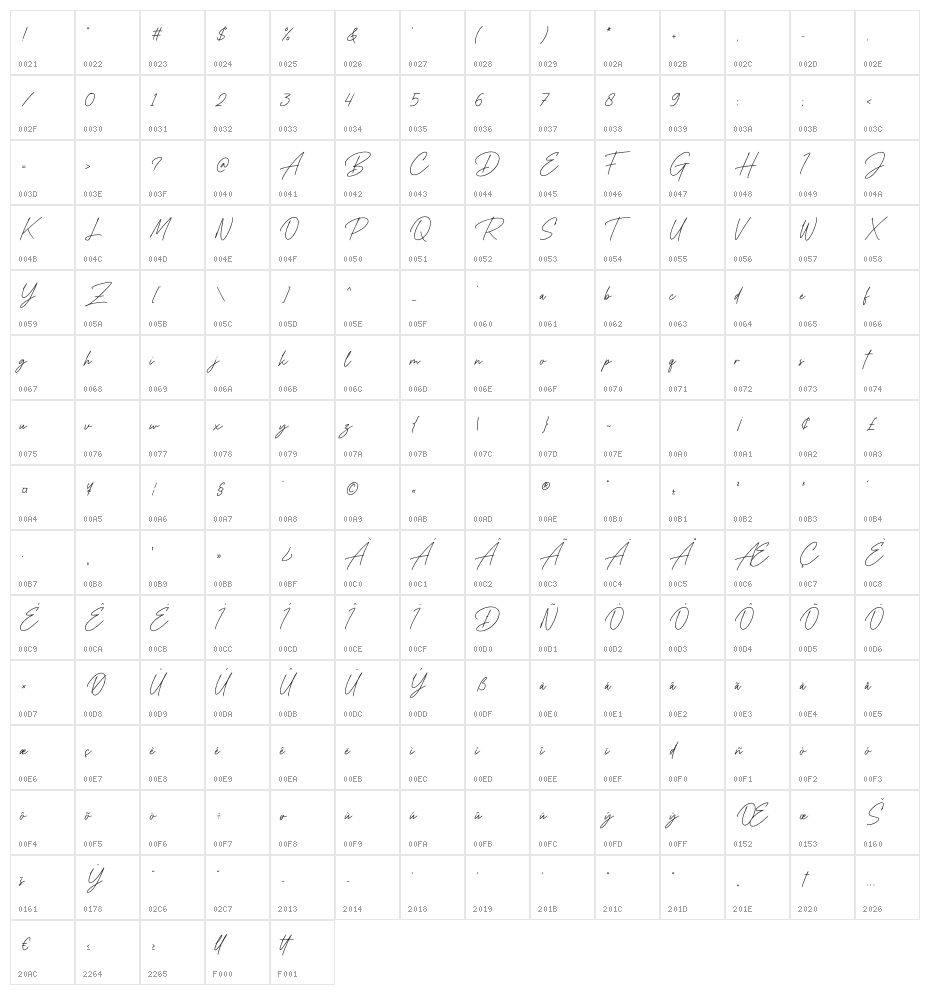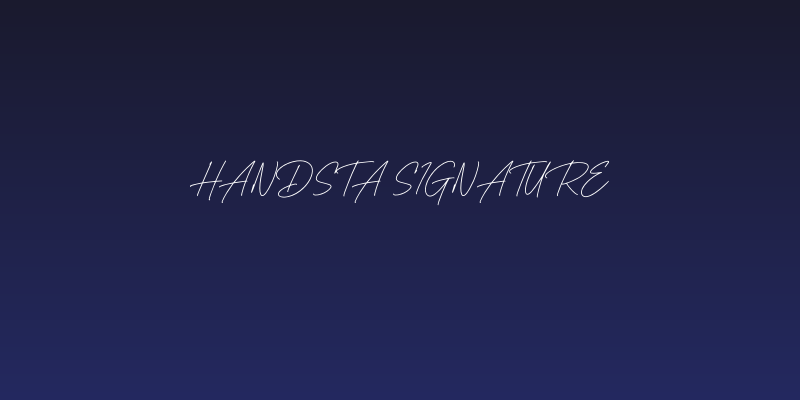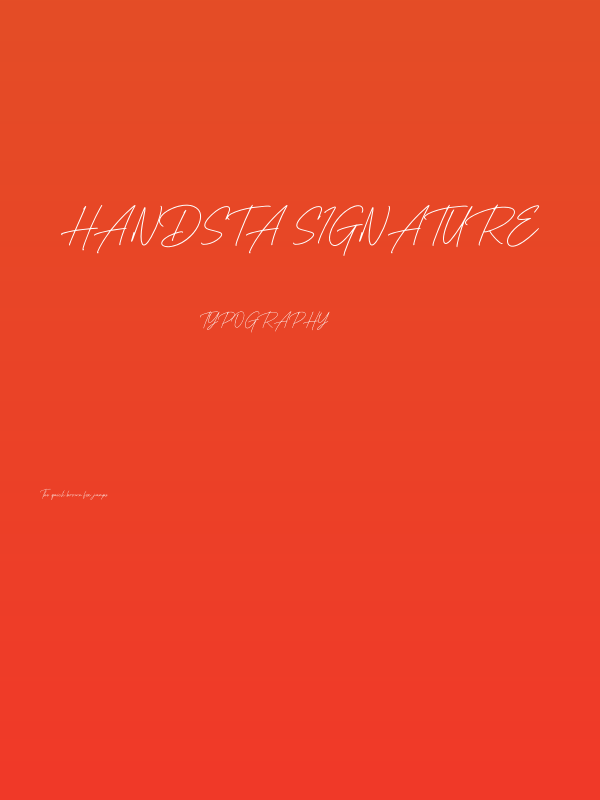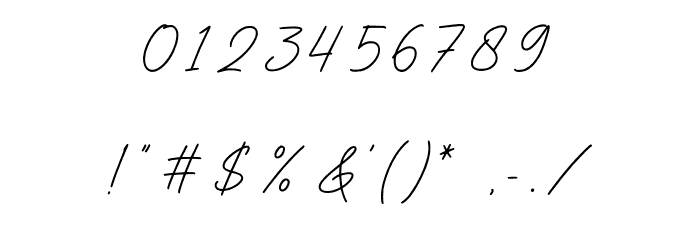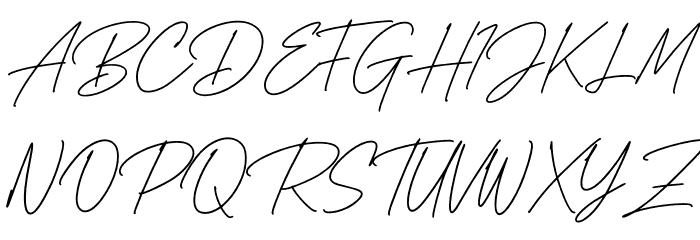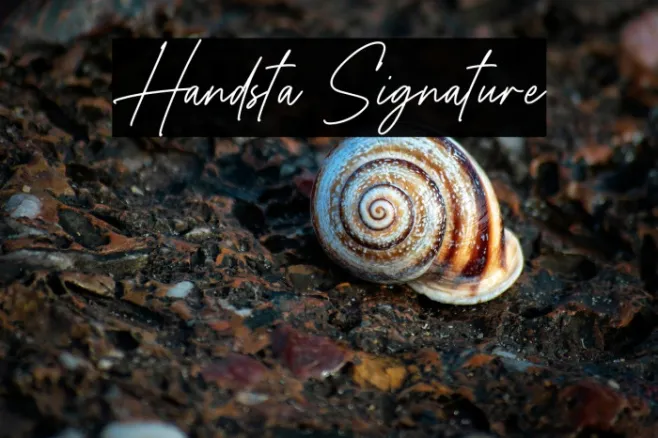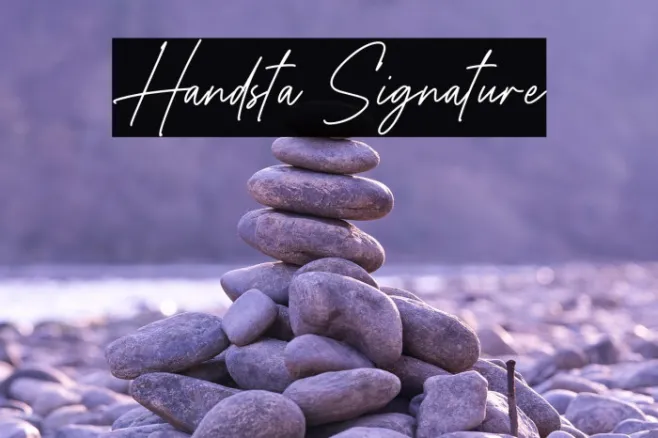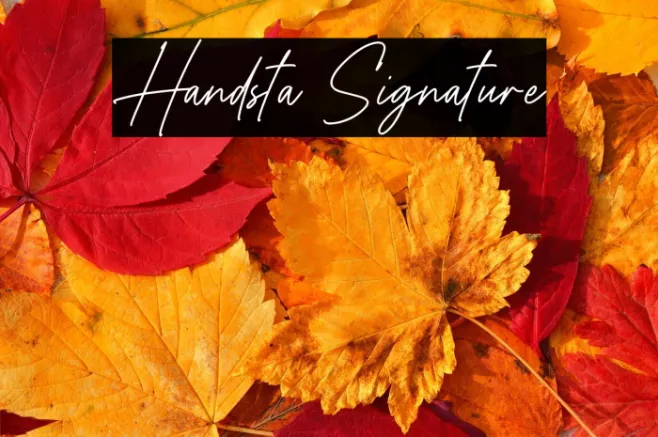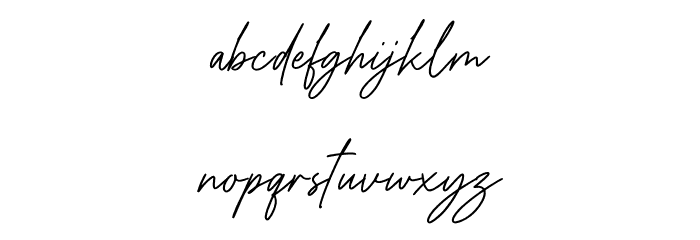
Handsta Signature Font
Handsta Signature Description
This elegant script font exudes a sense of sophistication and fluidity, characterized by its smooth, flowing lines and cursive style. The letters are connected in a way that mimics natural handwriting, giving it an authentic and personal touch. The uppercase letters are slightly more elaborate, with graceful loops and swirls, while the lowercase letters maintain a consistent and harmonious flow. The numerals and special characters are designed to complement the overall style, ensuring a cohesive look across all text. This font is perfect for projects that require a touch of elegance and personalization.
| Overall Style | Elegant, Handwritten |
| Use Case | Logos, Invitations, Personal Branding |
| Proposed Projects | Ideal for wedding invitations, personal branding, elegant stationery, and signature logos. |